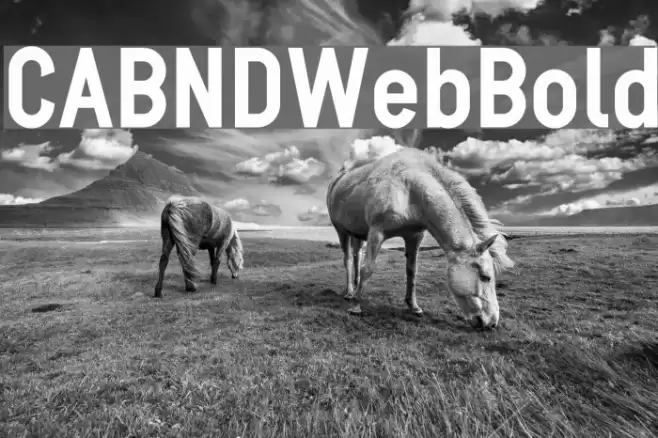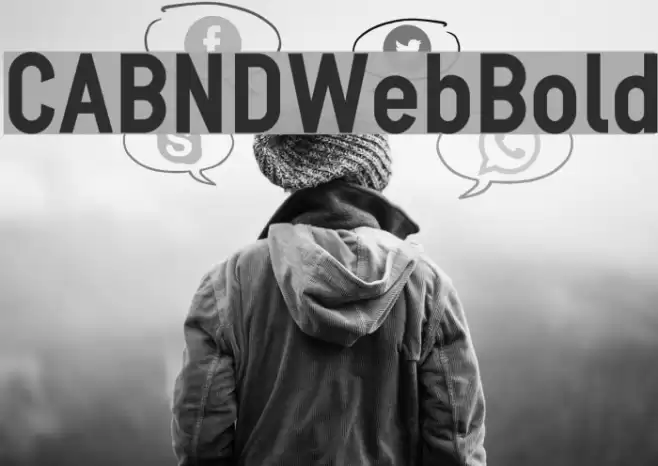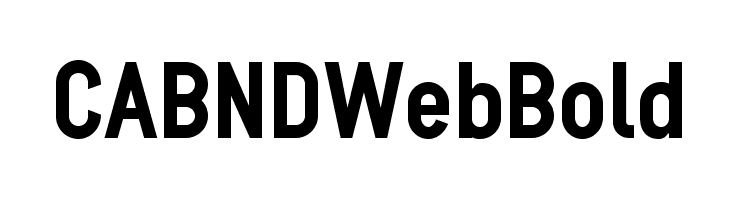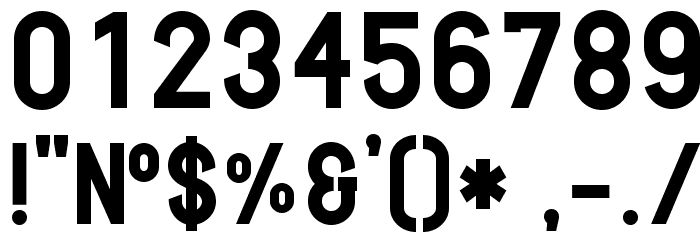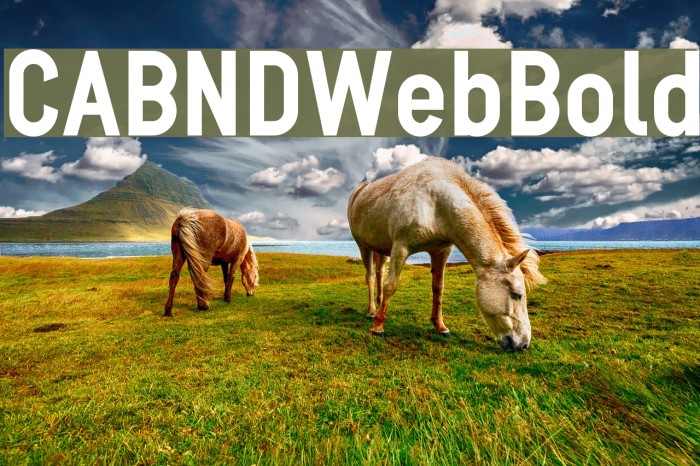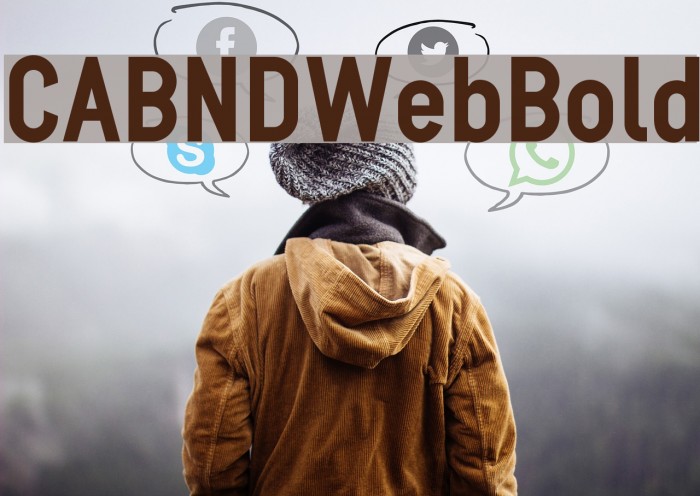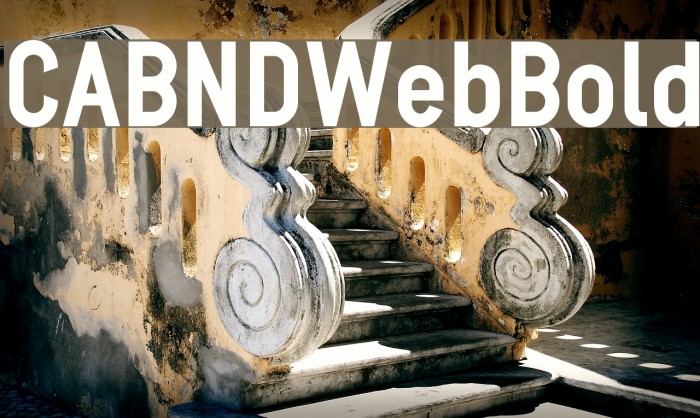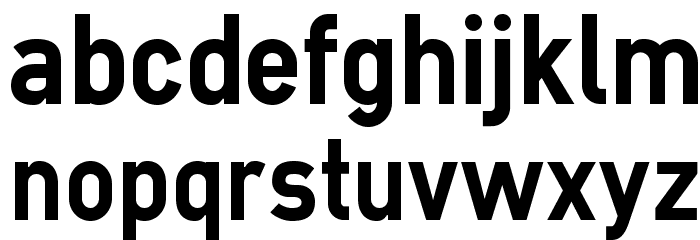
CABNDWebBold Font
CABNDWebBold Description
This font features a bold and robust design with clean, straight lines and uniform stroke widths. It is a sans-serif typeface, characterized by its lack of serifs and modern, geometric appearance. The uppercase letters are tall and commanding, while the lowercase letters maintain a consistent height, providing a balanced look. The numerals are clear and legible, making them suitable for various applications. Special characters are distinct and well-defined, ensuring clarity in any context. This font's boldness and simplicity make it versatile for both digital and print media.
A bold, modern sans-serif font with clean lines and geometric shapes from Uncategorized fonts.